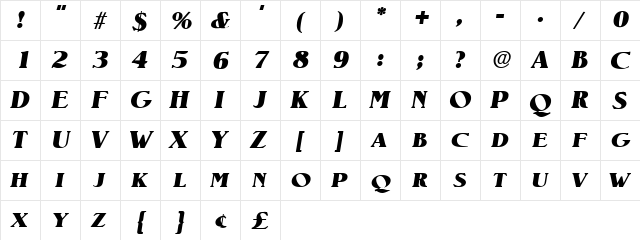
PineCaps Oblique
Design Context for PineCaps Typeface
PineCaps is a composed and adaptable typeface that performs quietly and consistently across a wide range of design contexts. The slanted form adds forward momentum and visual energy.
Pro Tip: Try PineCaps for annotation and caption copy alongside an upright companion — the contrast in angle creates a dynamic but ordered typographic system.